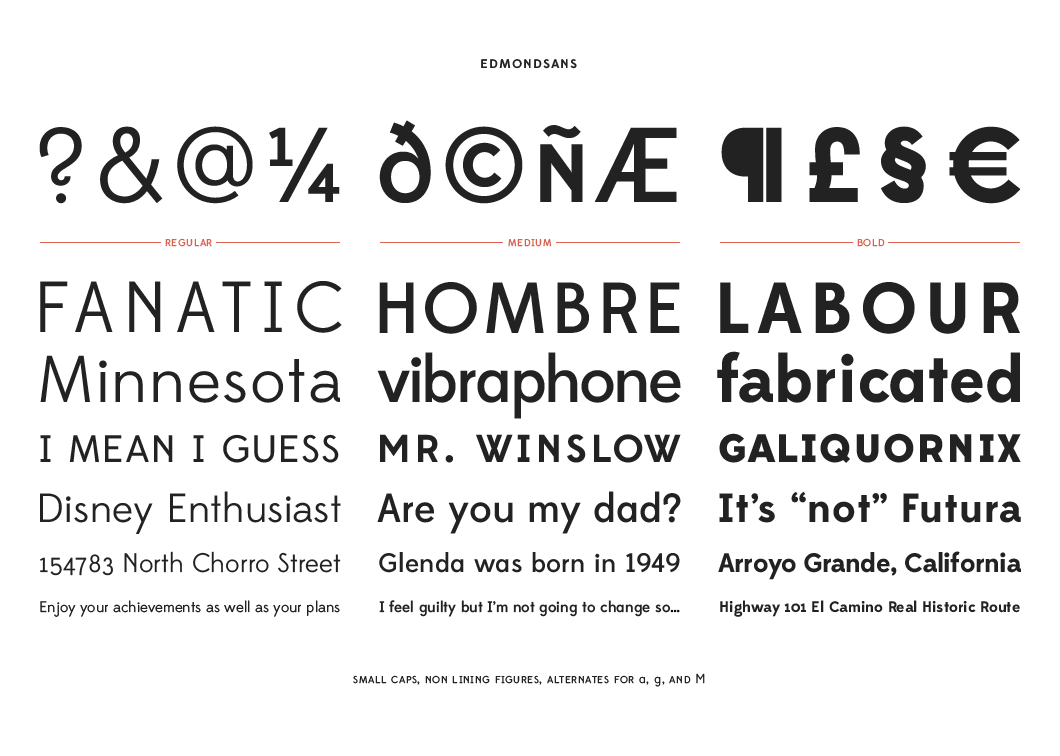
Edmondsans
A hard-working display face.
Edmondsans is hard-working display face in three weights, featuring some useful niceties like small caps, non-lining figures, and a few alternates.
Designed by James T. Edmondson